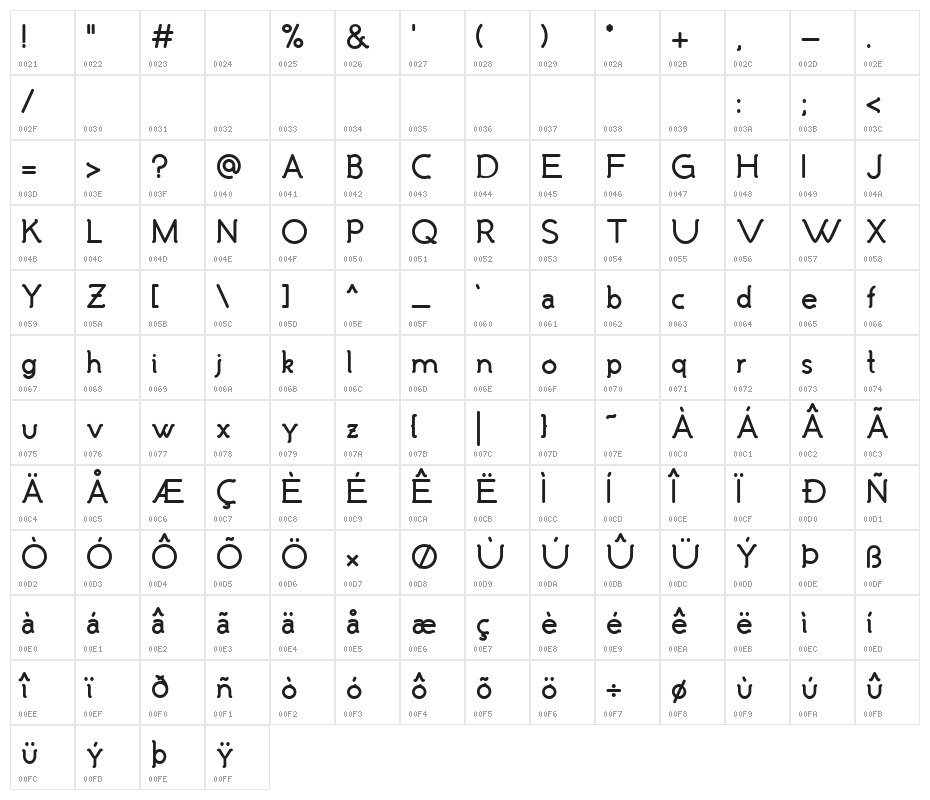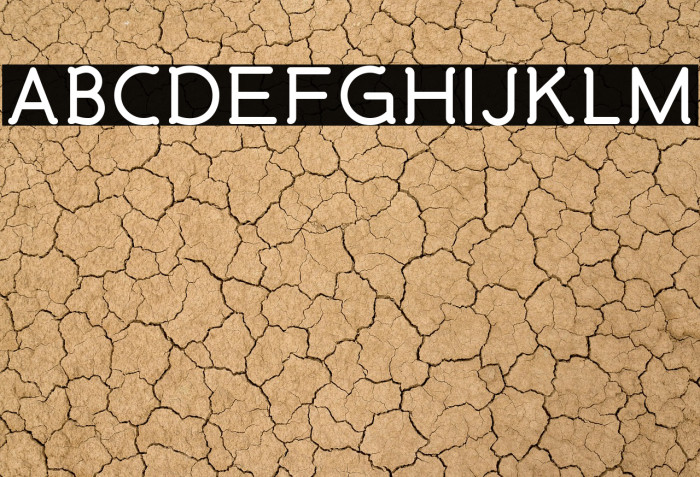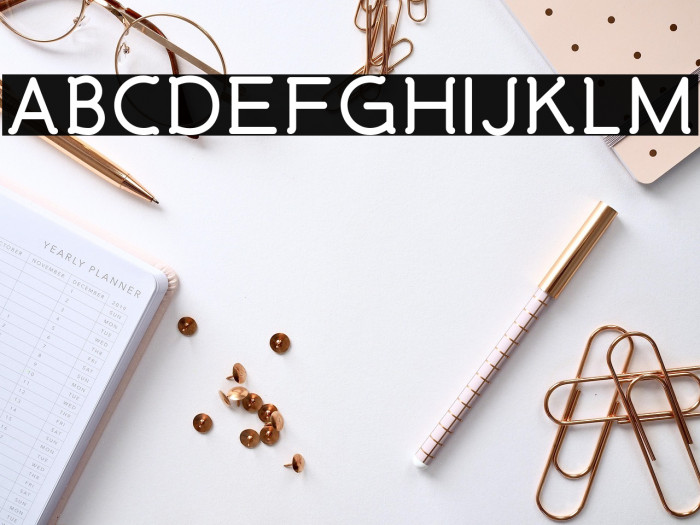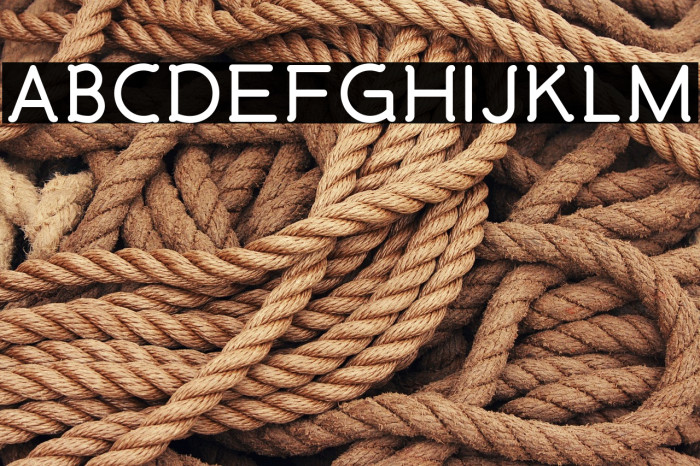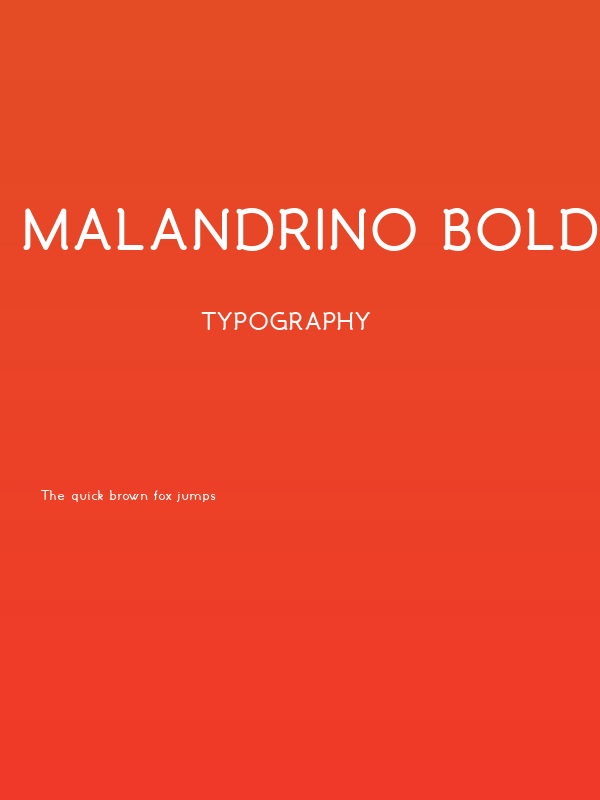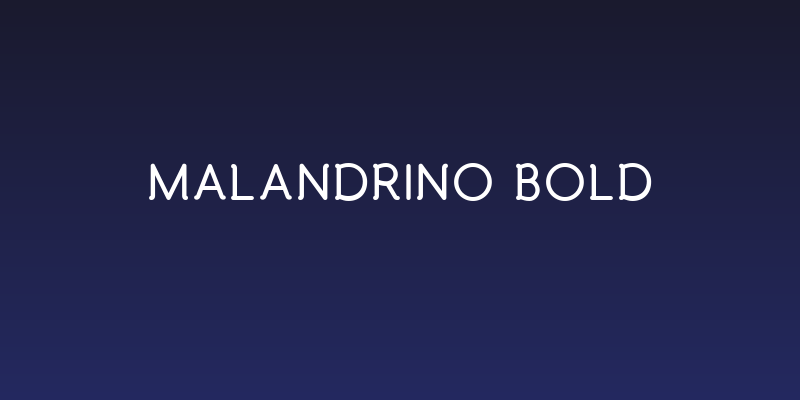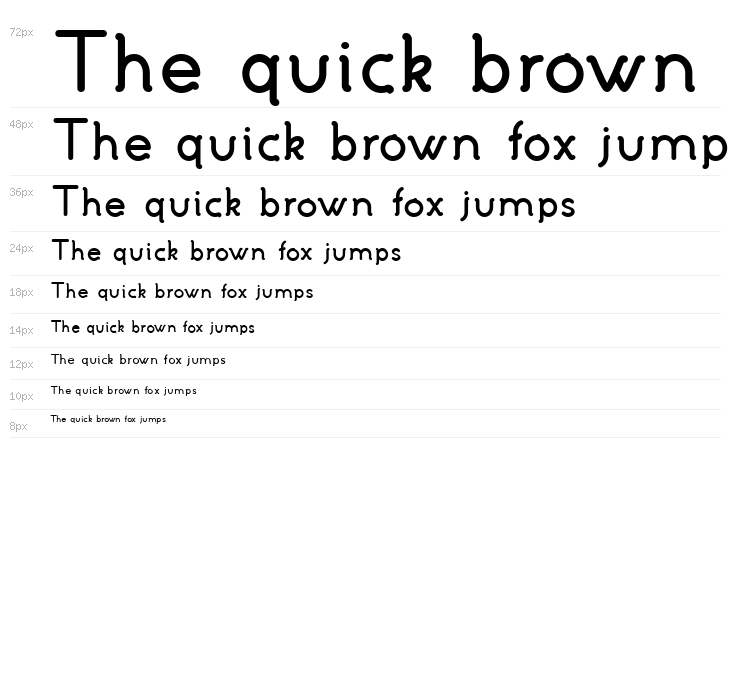
Malandrino Bold Font
Malandrino Bold Description
This font features a playful and rounded design, characterized by its smooth curves and consistent stroke width. The uppercase letters are bold and prominent, while the lowercase letters maintain a friendly and approachable appearance. The numerals and special characters follow the same rounded style, ensuring uniformity across all glyphs. This font's design is both modern and slightly whimsical, making it suitable for a variety of creative applications.
| Proposed Projects | Ideal for children's books, playful branding, casual invitations, and creative posters. |